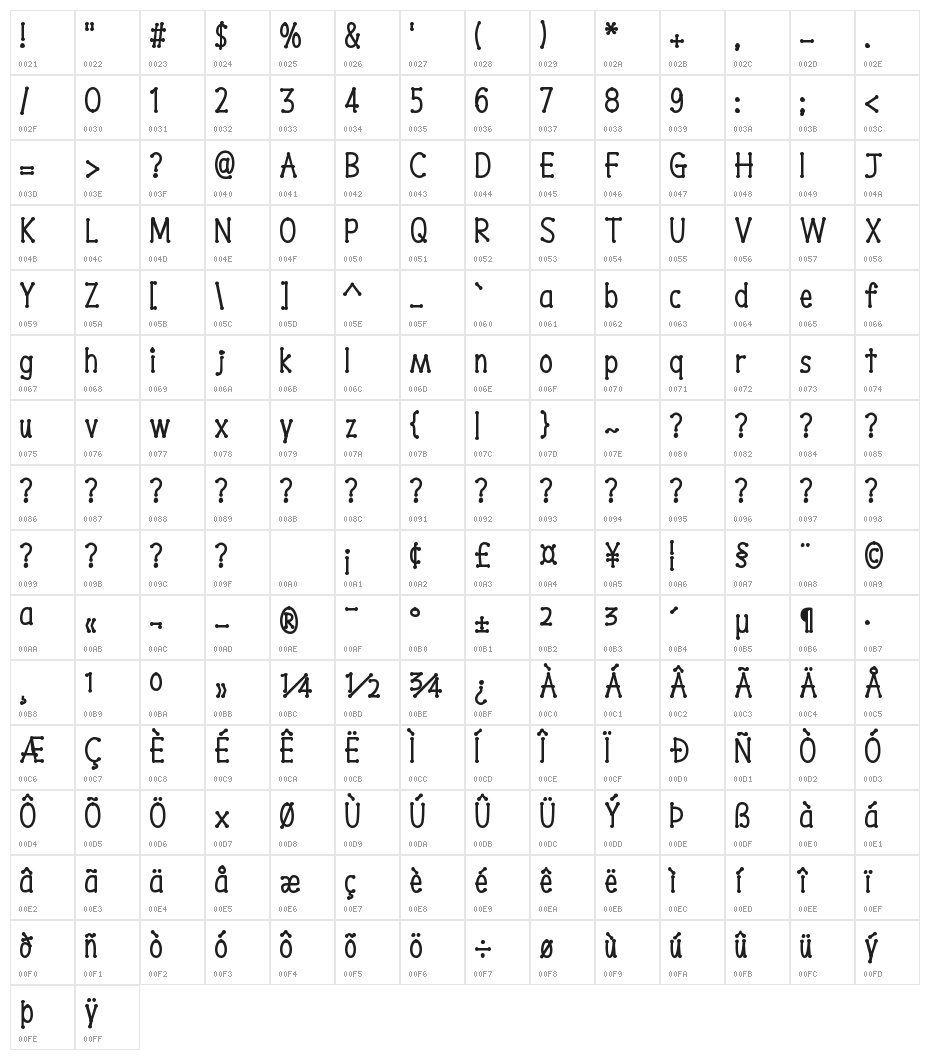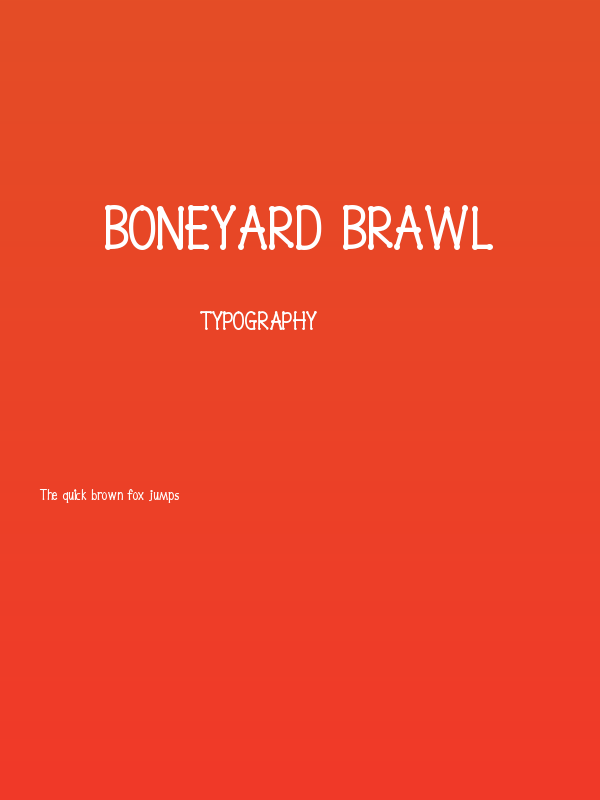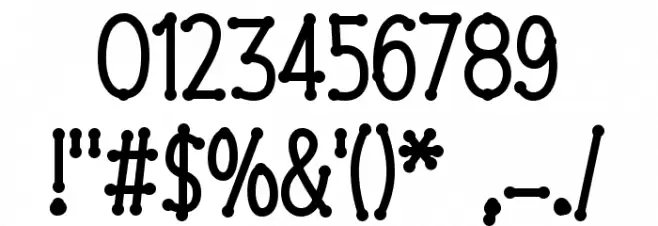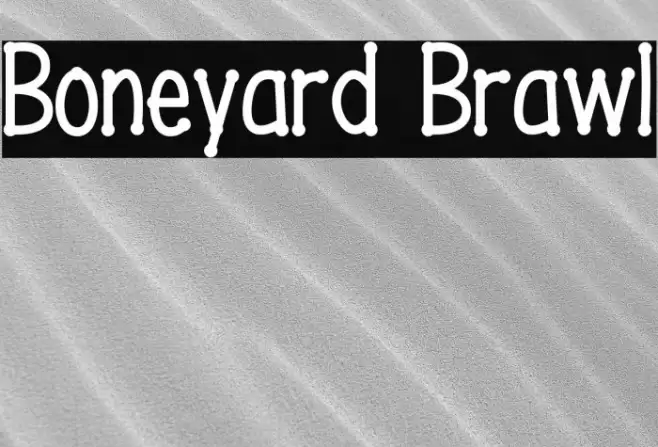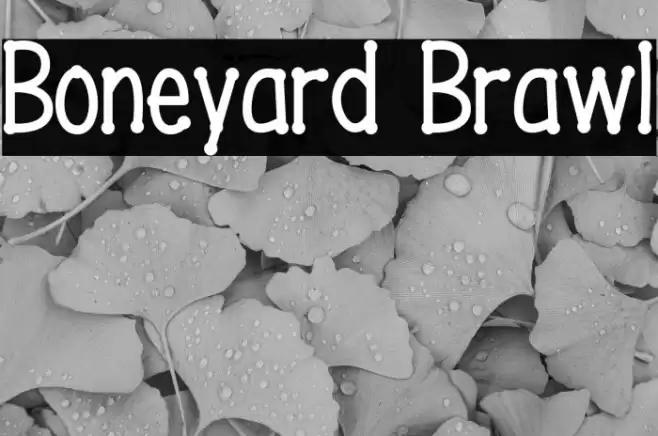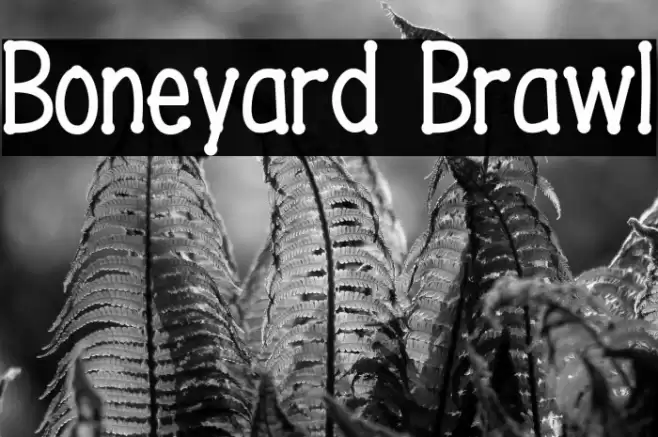
Boneyard Brawl Font
Boneyard Brawl Description
This font features a playful and quirky design with rounded edges and a hand-drawn appearance. The characters are slightly irregular, giving it a casual and informal feel. The uppercase and lowercase letters maintain a consistent style, with a whimsical touch that makes it stand out. The numbers and special characters follow the same playful theme, making it suitable for creative and fun projects. The overall look is approachable and friendly, ideal for designs that aim to convey warmth and personality.
| Proposed Projects | Ideal for children's books, greeting cards, playful branding, and casual event invitations. |